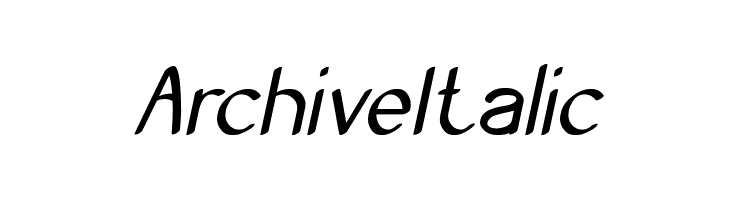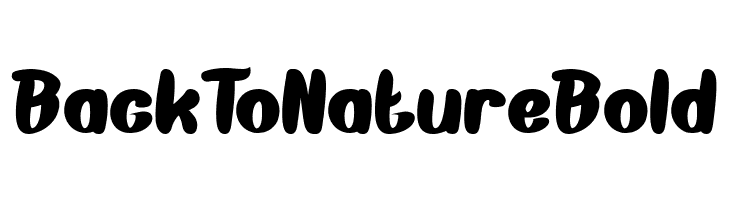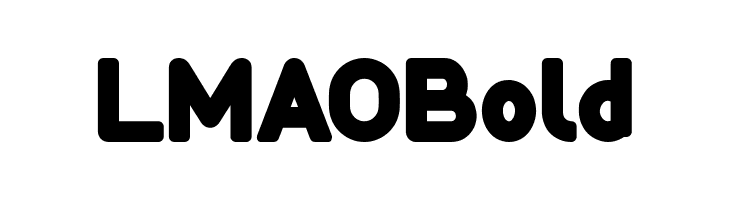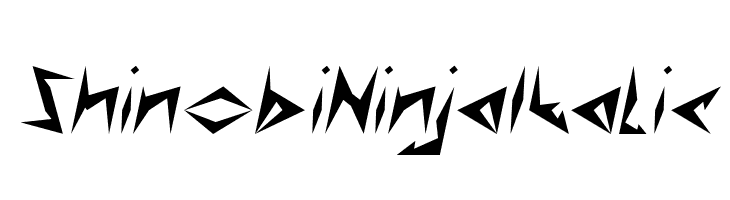
A modern, geometric font with rounded edges and high legibility.
A sophisticated serif font with a playful twist, ideal for versatile applications.
A bold, angular font with a fantasy-inspired geometric style.
A distressed, chaotic font with jagged edges and irregular strokes.
A bold, tribal-inspired font with sharp, angular edges and decorative elements.
A bold, decorative font with a futuristic, space-themed aesthetic.
An elegant serif font with artistic curves and a medieval touch.
A playful, bold font with rounded shapes and exaggerated serifs.
A bold, gothic-style font with intricate, decorative elements.
A bold, dynamic font with a strong presence and unique character.
A bold, italic font with a modern and dynamic style.
A bold, italic font with a dynamic and forward-leaning style.
A bold, modern font with strong, thick strokes and excellent readability.
A bold, italic font with a strong slant and modern appeal.
A bold, dynamic font with unique serifs and strong visual impact.
A bold, playful font with exaggerated curves and thick strokes.
A bold, futuristic font with geometric shapes and horizontal line patterns.
A dynamic, angular font with sharp strokes and a martial arts-inspired style.
A bold, graffiti-inspired font with thick, uneven strokes and a hand-drawn feel.
A bold, decorative font with whimsical curves and intricate details.
A decorative font with bold, snake scale-inspired patterns.
A bold, vintage typewriter-style font with slab serifs and strong, uniform strokes.
A thin, monospaced typewriter-style font with a vintage appeal.
A bold, playful font with thick, rounded strokes and a cartoonish style.
A bold, decorative font with intricate cut-out patterns and dynamic style.
A bold, dynamic font with sharp angles and smooth curves for a striking impact.
A playful, hand-drawn font with rounded, bold characters and a whimsical style.
A bold, playful handwritten font with a casual and friendly vibe.
A modern sans-serif font with a clean, condensed style and uniform stroke widths.
A playful, hand-drawn font with irregular, wavy letterforms.
A playful, hand-drawn font with bold, rounded characters and a whimsical style.